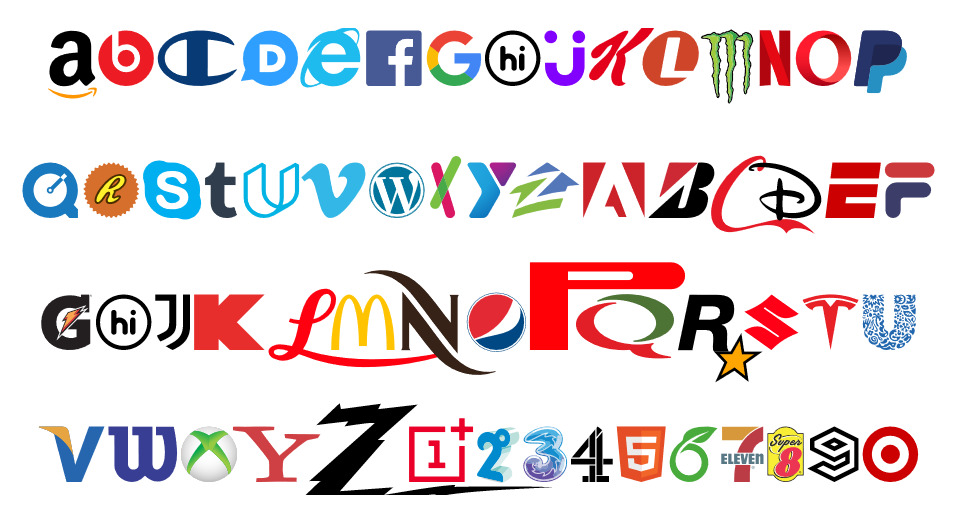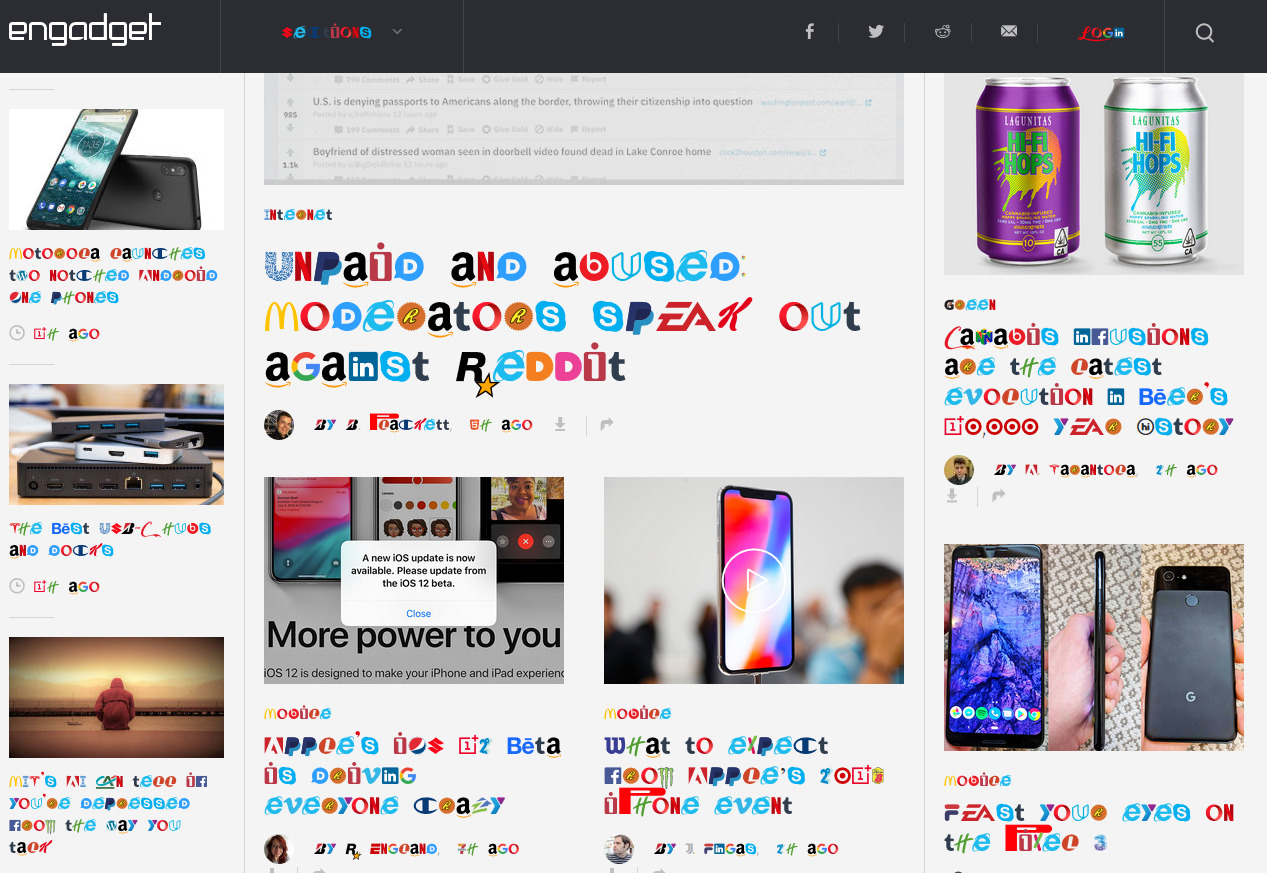
This funky new font is made up entirely of brands
How many of the logos can you identify?
A digital studio called Hello Velocity has created a typeface that embraces well-known corporate logos and is still somehow far less annoying than Comic Sans. The studio says it creates "thought-provoking internet experiences," and its Brand New Roman font is a clever statement on consumerism.
Each letter and number draws from a corporate logo, and much of the branding will be instantly recognizable for many of us, highlighting just how ingrained these companies are in our day-to-day lives. In fact, identifying each of the 76 logos makes for a fun game. The lowercase "a" is obviously Amazon's branding, and the zero is Target's logo. In between, you'll see branding from Disqus to Disney, Reece's to Rockstar Games, and Monster Energy to McDonalds. Typing a double "d" gives you the Dunkin' Donuts logo, while Hello Velocity snuck in its own branding in place of "hi."